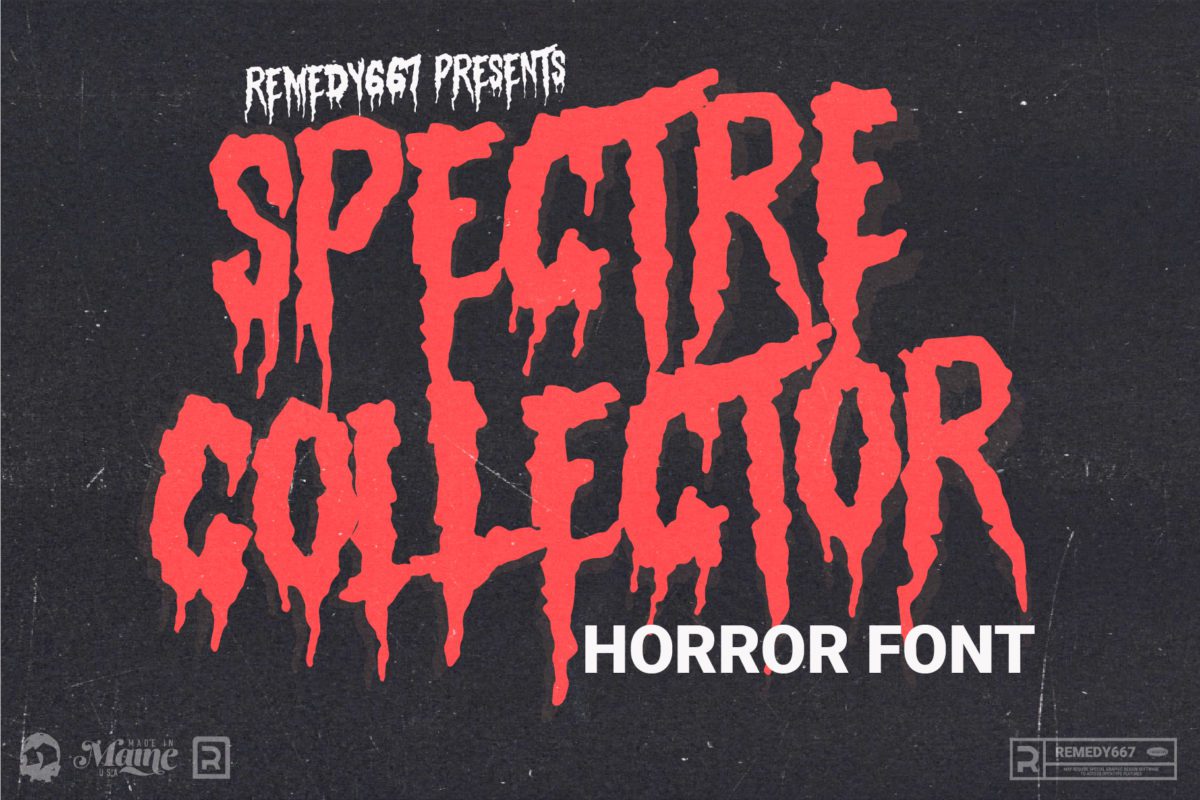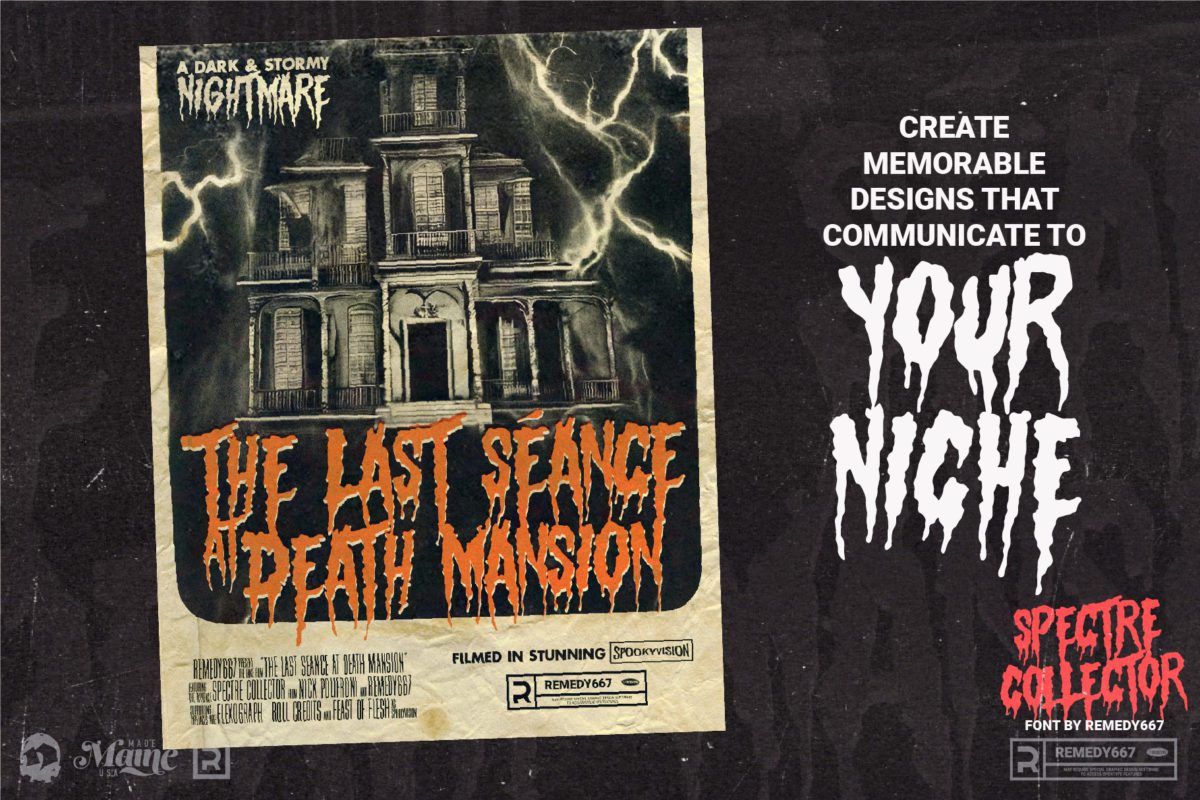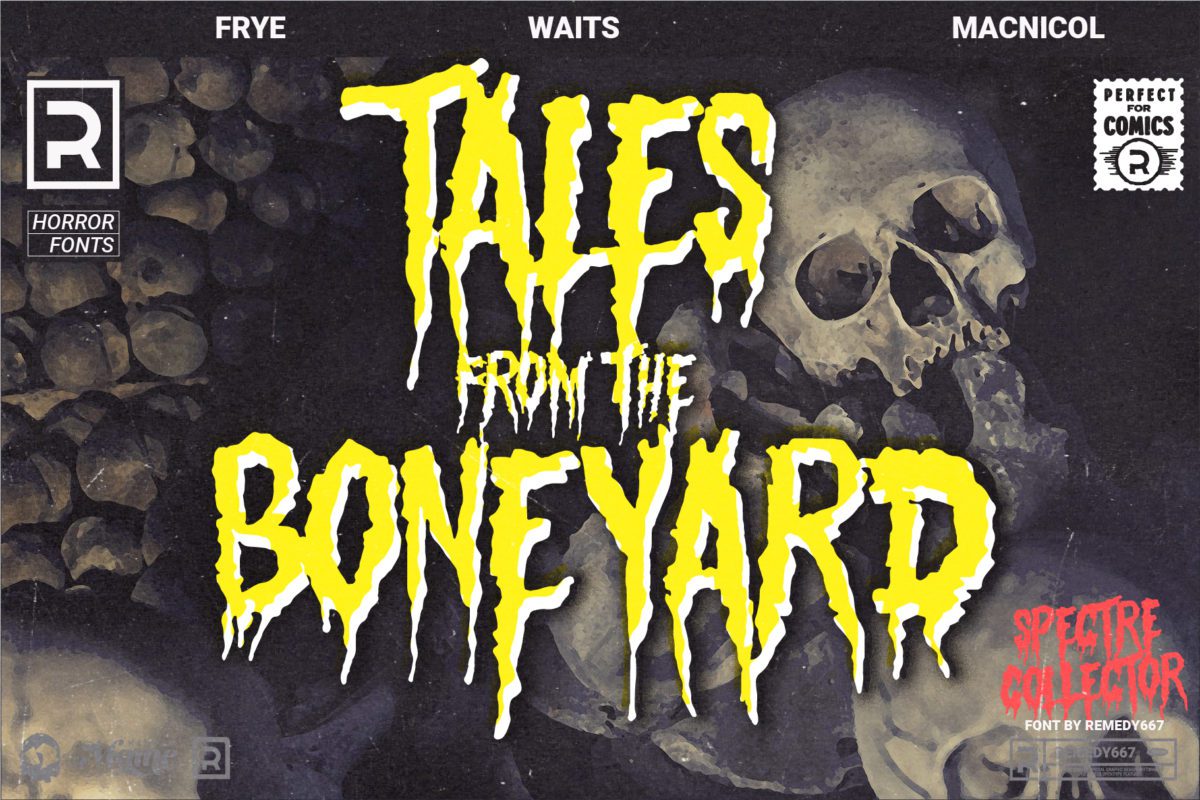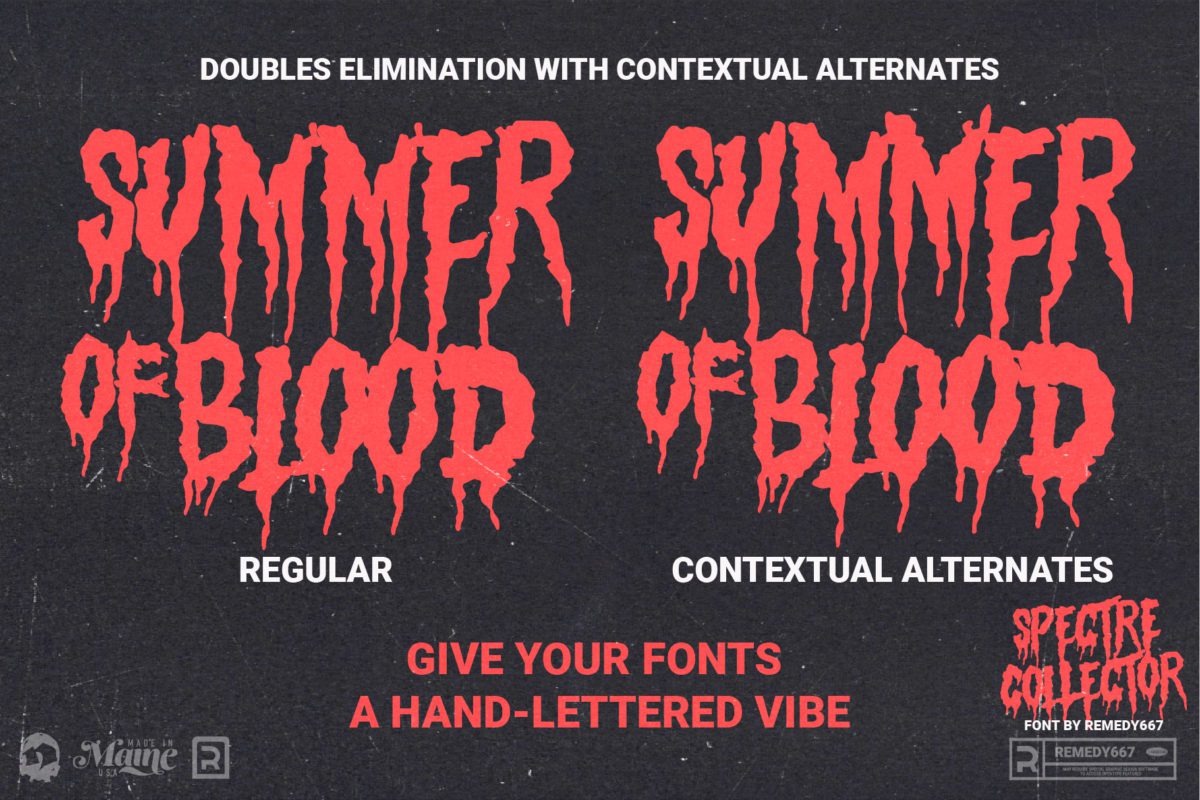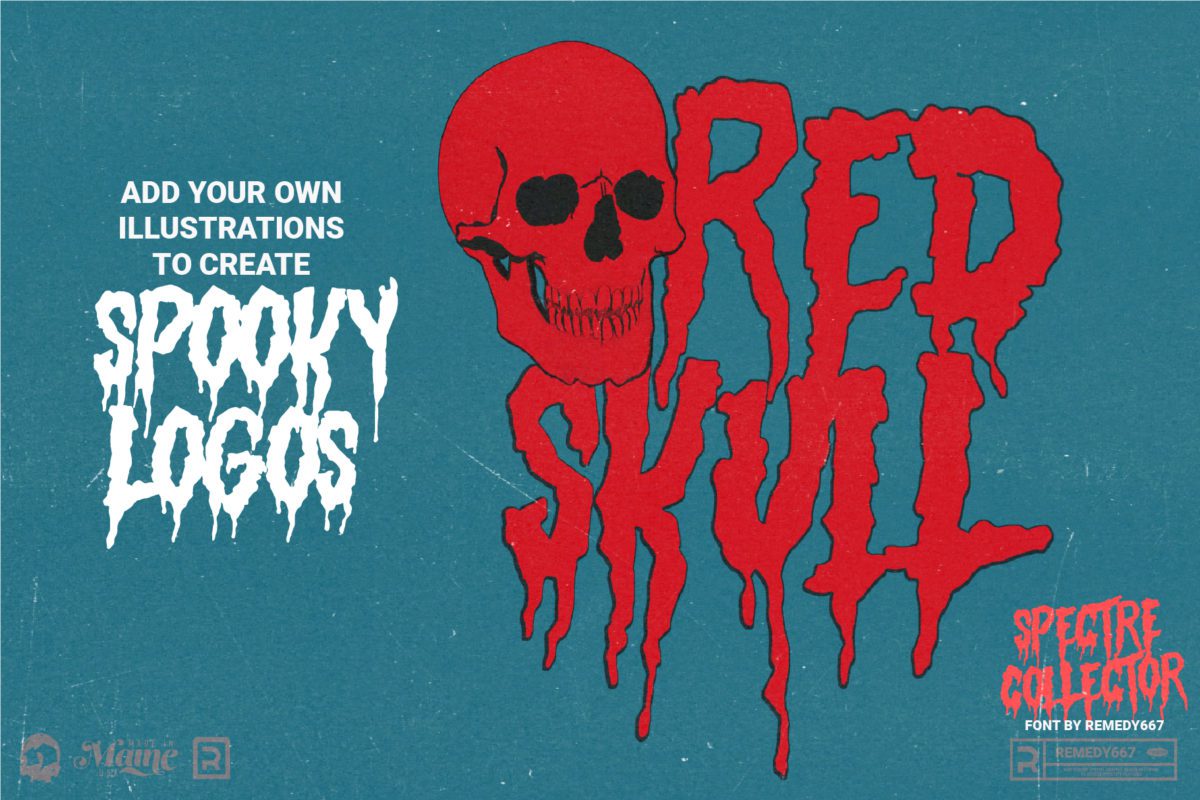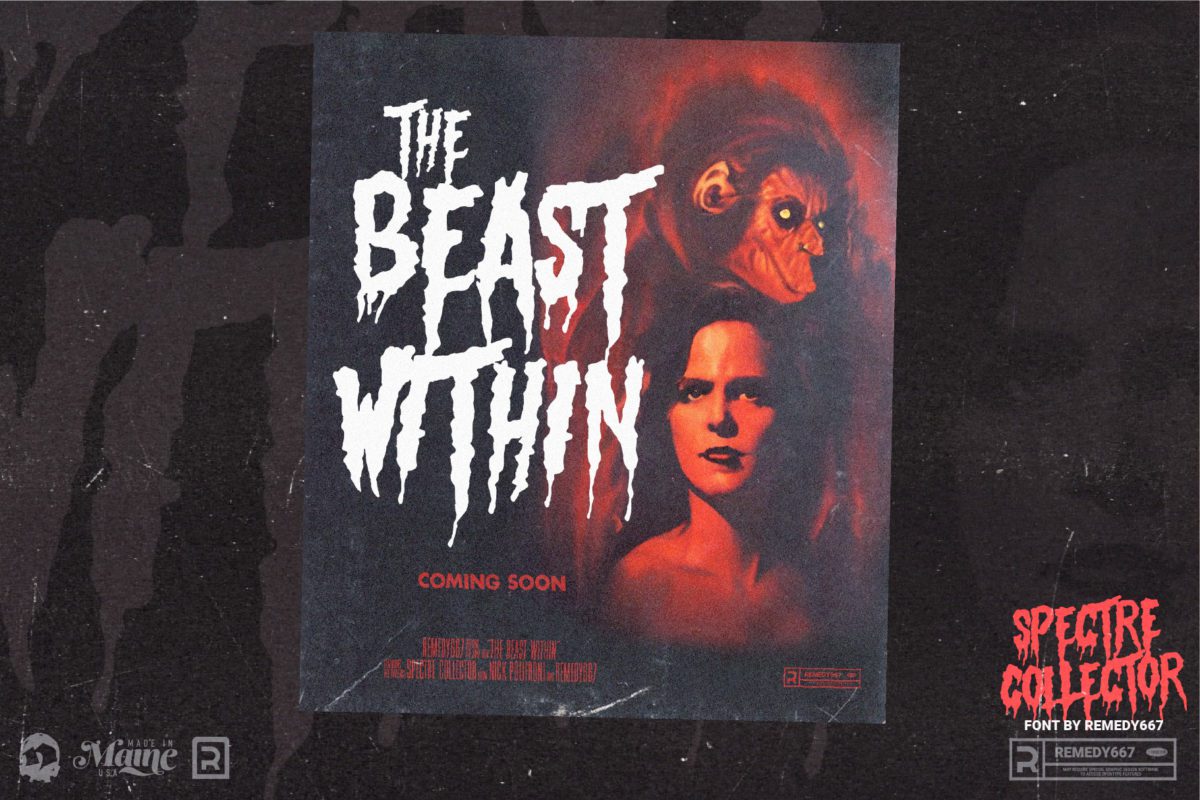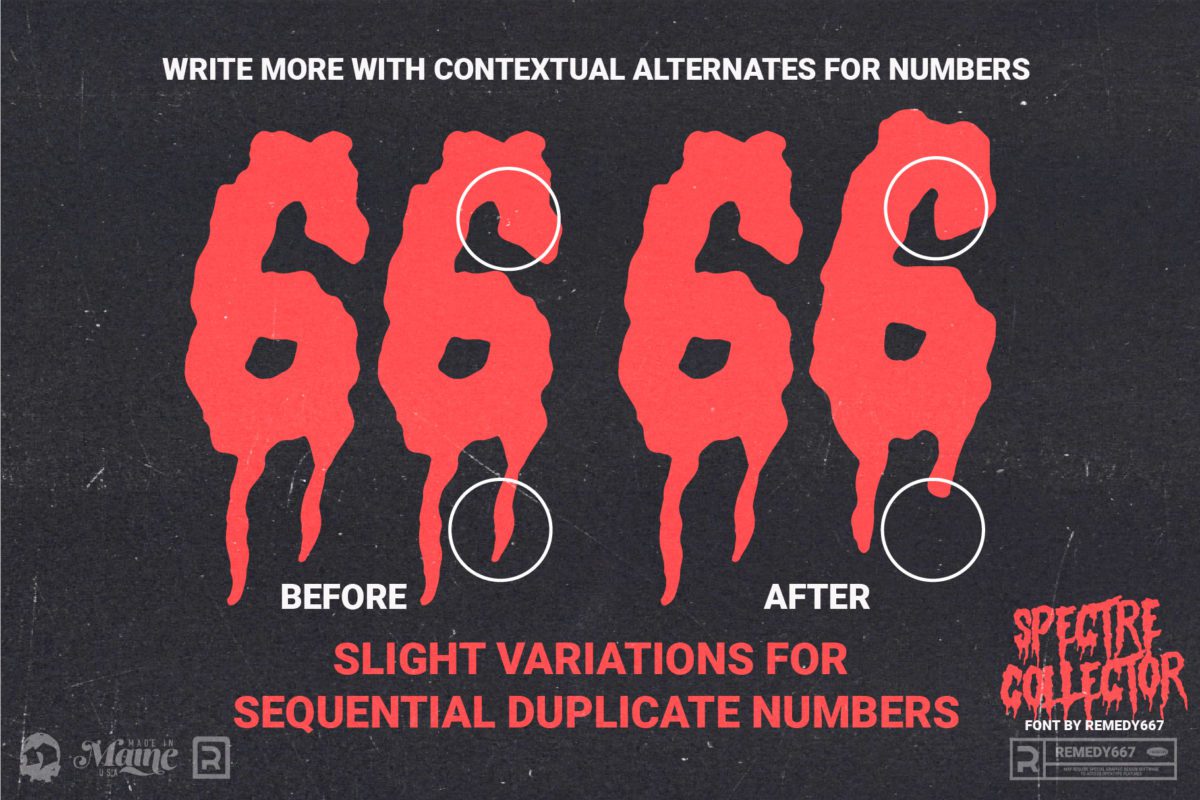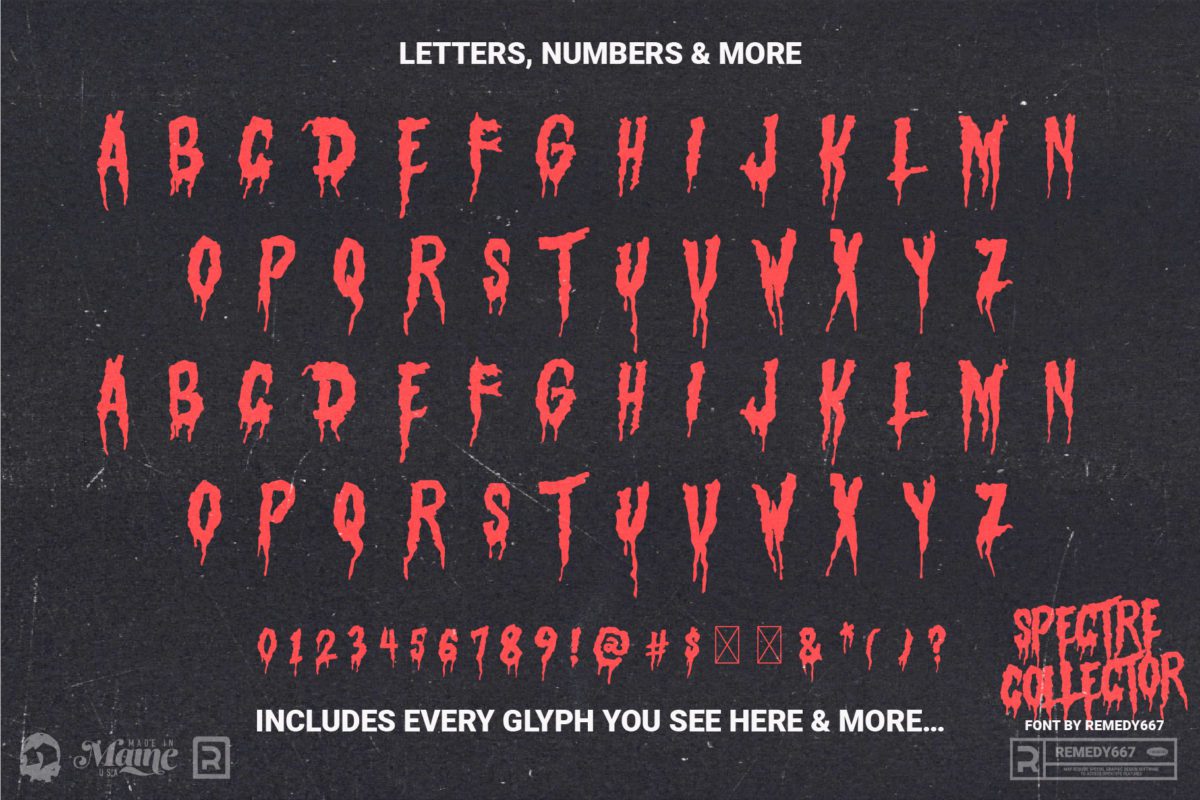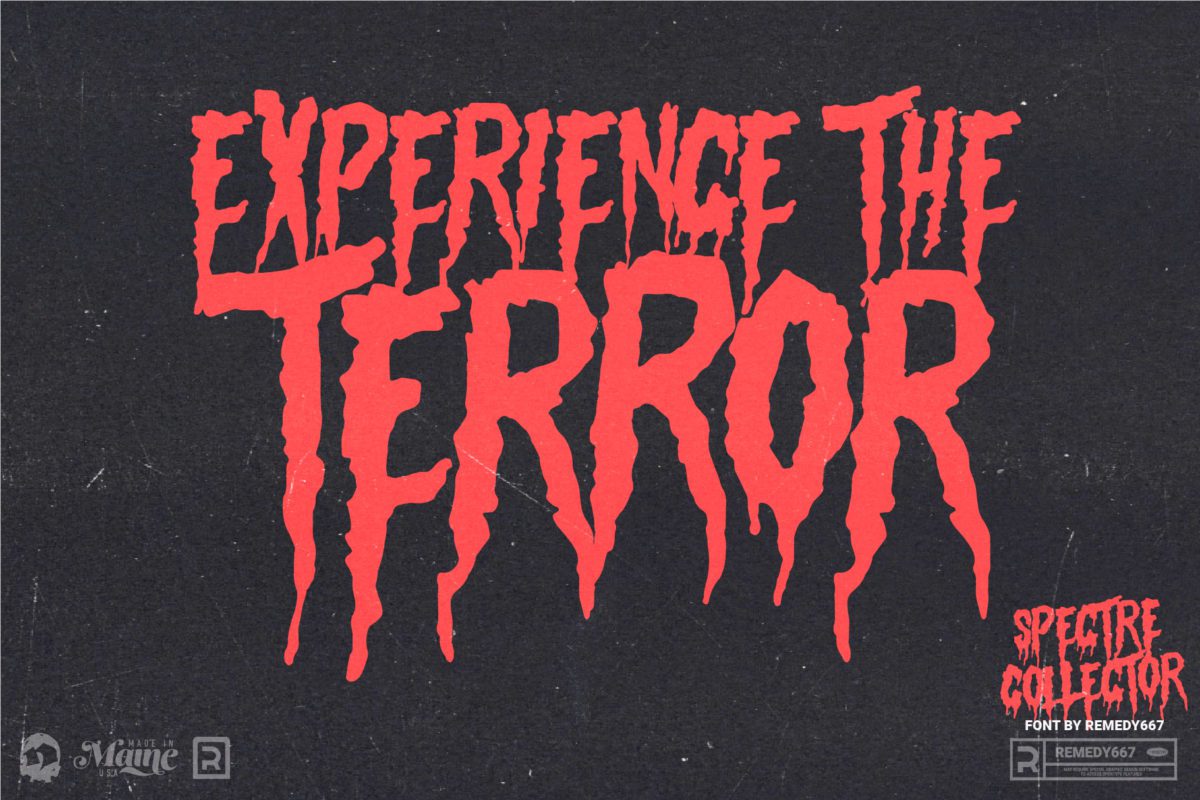
Feeling the need to mix some blood with your fonts? Spectre Collector is the perfect typeface for all of you horror movie lovers. Use it in any graphic design, from logos to title cards. Add that perfect touch of death to your projects.
Spectre Collector is the perfect display typeface for video game titles, movie posters, apparel designs, album artwork, or anything horror-themed. Spectre Collector is a powerful tool for designing horror-themed projects. Try it today!
I find it rare to come across vintage-looking horror fonts that actually looks authentic yet unique, but this guy hits the mark every time. This one is no exception. The inspirational preview examples, fun newsletter, and bonuses such as double elimination or ligatires are just icing on the cake. I love it!